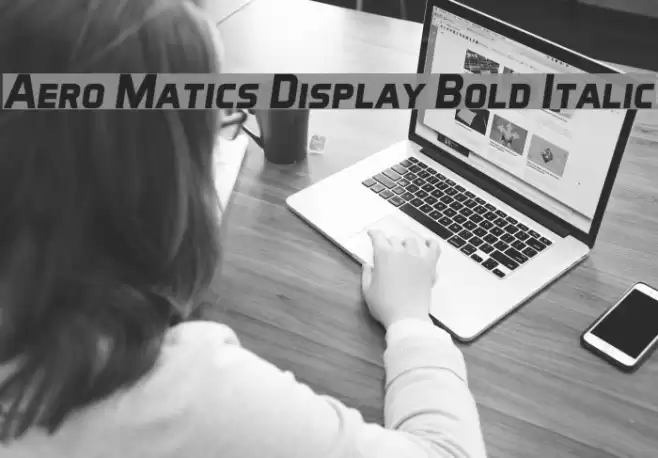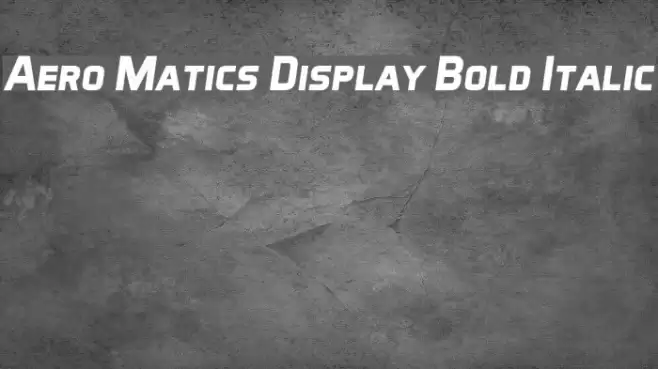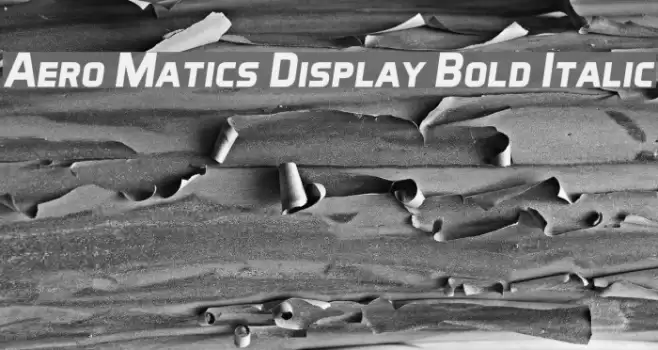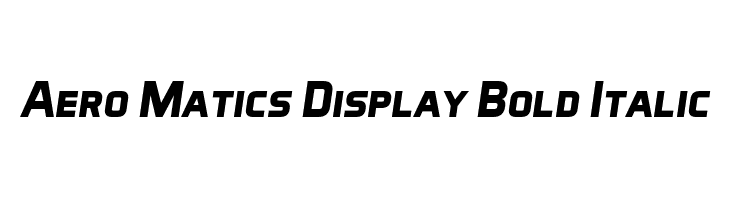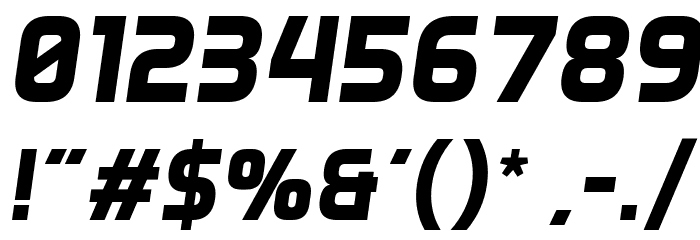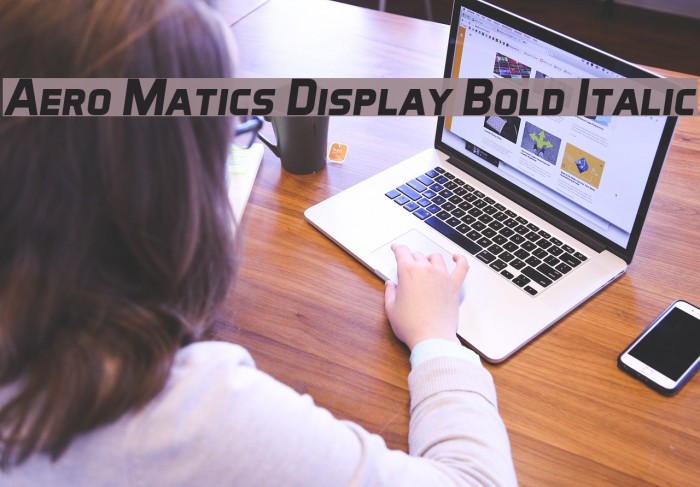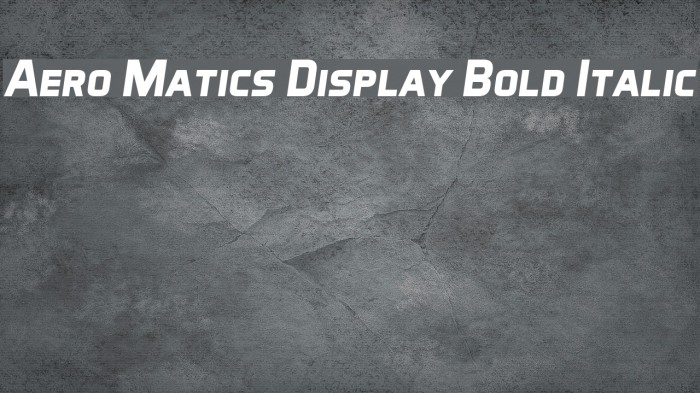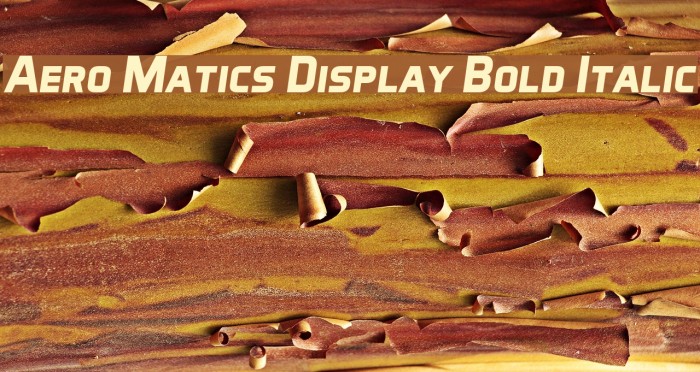
Aero Matics Display Bold Italic Font
Aero Matics Display Bold Italic Description
This font features a bold and italicized style with a modern and dynamic appearance. The characters are slightly slanted, giving a sense of motion and energy. The strokes are thick and consistent, providing a strong visual impact. The design is clean and geometric, with sharp angles and a futuristic feel. The uppercase and lowercase letters maintain a uniform width, contributing to a cohesive look. The numerals are clear and legible, matching the overall aesthetic. Special characters are well-integrated, ensuring versatility in various design contexts.
A bold, italicized font with a modern, dynamic style and strong geometric shapes from Uncategorized fonts.
- Proposed Projects: Ideal for branding, sports team logos, automotive designs, and tech-related projects.